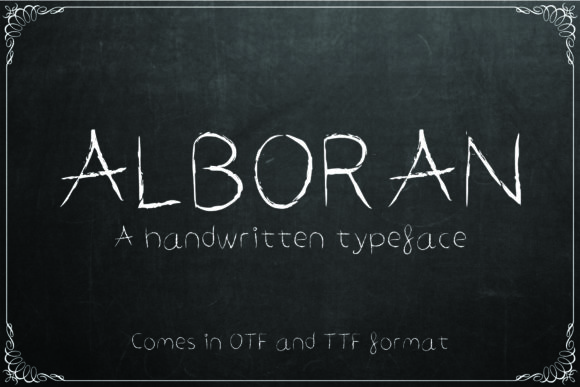
Journey into the enchanting world of Alboran, a script font family that captivates the senses with its authentic, handwritten style. Crafted by the skilled hands of denestudios, Alboran exudes a personality that brings life to your designs, evoking a sense of warmth and individuality.
With its graceful strokes and flowing curves, Alboran effortlessly adds a touch of elegance and charm to any project. Its playful nature makes it perfect for creating stunning logos, eye-catching social media graphics, heartwarming invitations, and memorable branding materials. Whether you're a seasoned designer or just starting out, Alboran is your gateway to creating designs that leave a lasting impression.
Unleash your creativity and immerse yourself in the beauty of Alboran. Let your designs speak volumes with its captivating characters, each meticulously crafted to convey emotion and authenticity. From heartfelt personal messages to bold marketing campaigns, Alboran transforms your words into captivating works of art.
Experience the joy of crafting designs that resonate with your audience on a deeper level. With Alboran, you'll create designs that captivate and inspire, leaving an indelible mark on those who encounter them. Embrace the magic of Alboran and embark on a creative journey like no other.